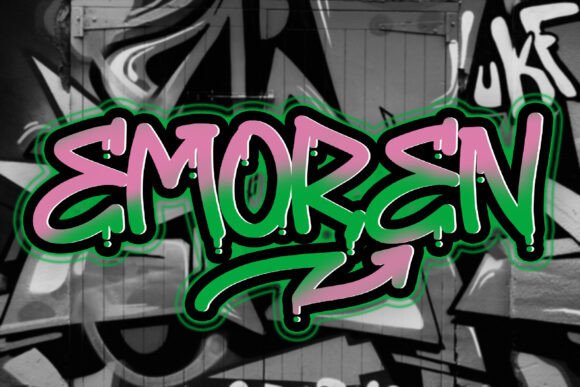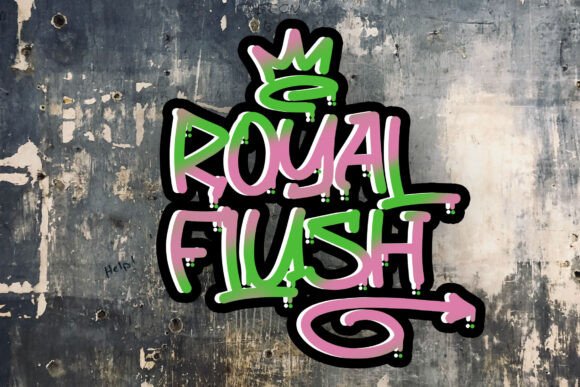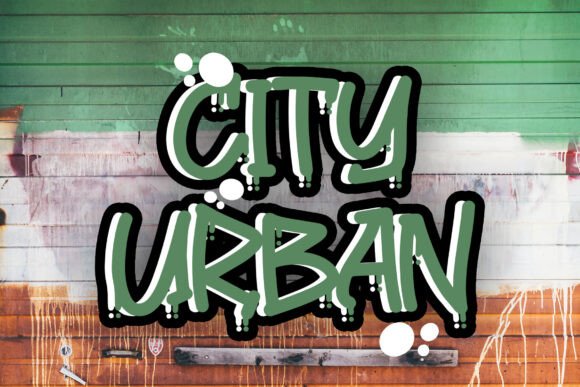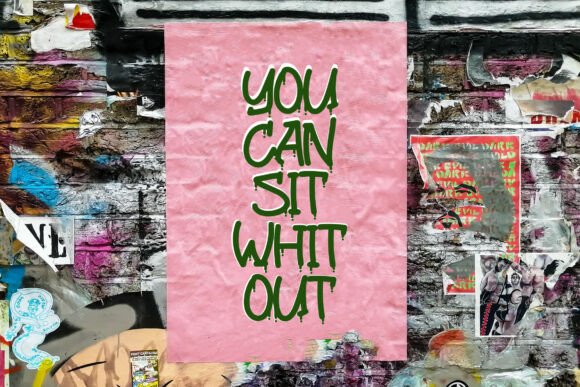
Emoren Font: Bold Graffiti Typography for Eye-Catching Poster Design
About the Emoren Font
Crafted with precision, the Emoren Font is ready to bring your ideas to life. EMOREN: Dripping Handbrush Graffiti Font
Meet EMOREN, a graffiti font with a bold dripping handbrush style, perfect for adding a unique and edgy vibe to your designs. With its dynamic character shapes, EMOREN brings a raw, eye-catching look that’s ideal for street art-inspired projects, posters, apparel, and more. Enhance the visual appeal of your creations with this one-of-a-kind font.
Emoren’s bold, rebellious energy makes it a strong choice for headlines, posters, and branding projects targeting a youthful, edgy audience. It excels in short impactful statements and logos where its raw texture adds visual interest. However, its highly stylized nature makes it unsuitable for body text or UI elements requiring high readability. Avoid using it for large blocks of text.
Consider pairing Emoren with a clean sans-serif like Open Sans for contrast, balancing its raw energy with a sense of order. For a more harmonious yet still modern feel, a geometric sans-serif such as Montserrat would also work well. Alternatively, a subtle serif font could add a touch of sophistication, tempering Emoren’s aggressive character.
Emoren’s dripping effect lends itself particularly well to streetwear apparel, music-related projects, and any brand that needs to communicate a sense of urban rebellion or creative freedom. Its unique character ensures high memorability but requires careful consideration of its limitations.
Emoren Font Usage Examples
Emoren Font Example